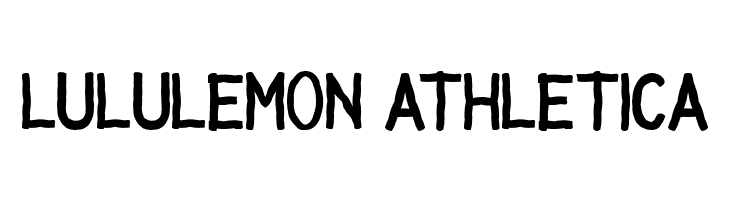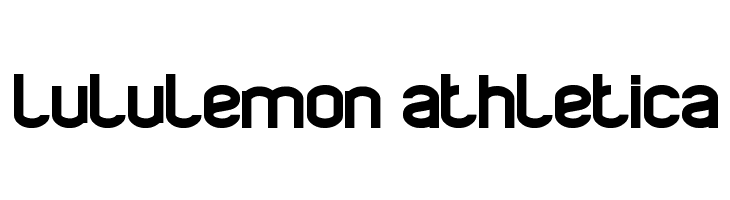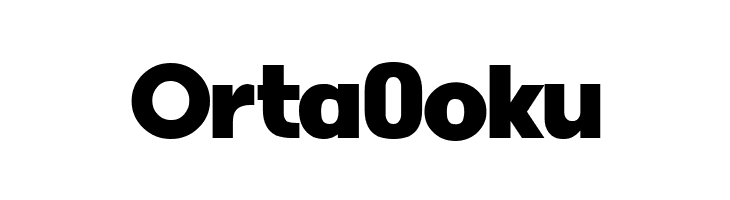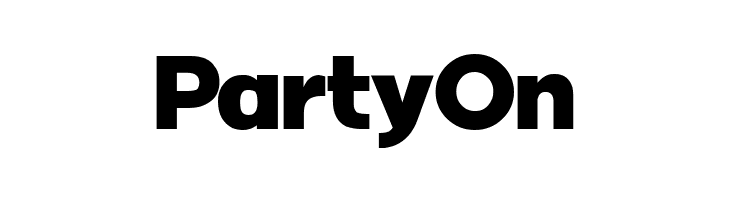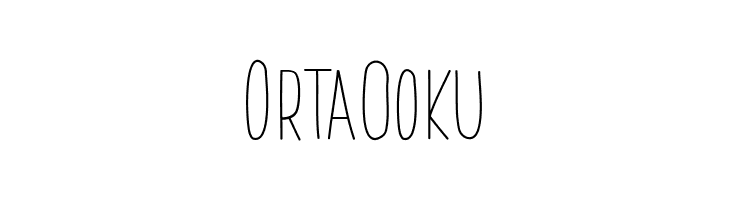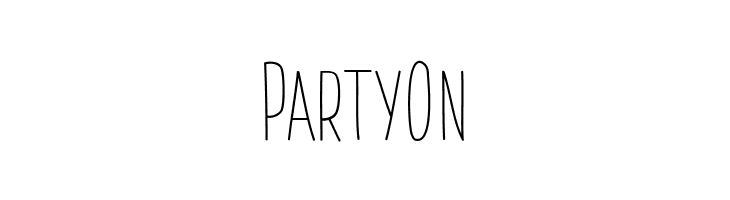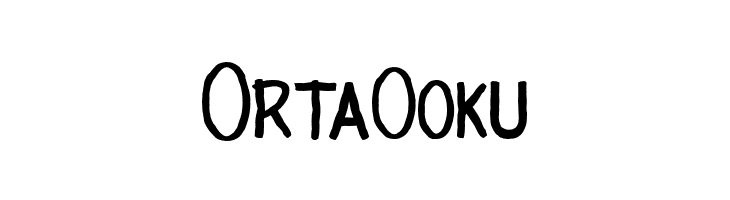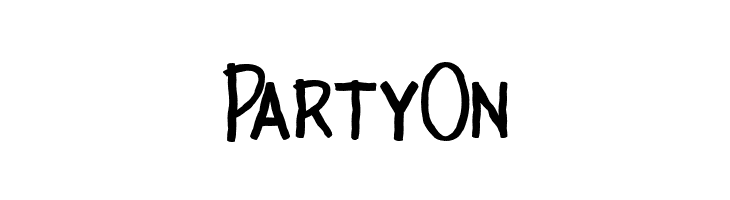
A bold, modern font with geometric and uniform strokes.
A bold, geometric font with a modern and professional style.
A bold, modern font with thick, rounded characters.
A bold, hand-drawn font with an energetic and playful style.
A playful, handwritten font with tall, narrow letters and a casual style.
A bold, grungy font with a distressed, paint-splattered effect.
A bold, grungy font with a rebellious, punk-inspired aesthetic.